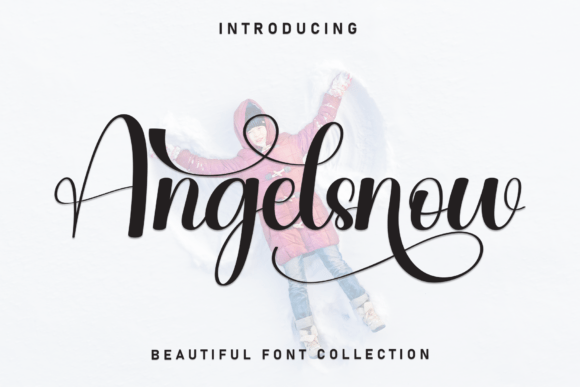
The Magic of Hand-Painted Fonts: Introducing Angelsnow Font
Do you remember the thrill of doodling in your notebook as a child, watching your pen dance across the page as you created intricate patterns and flowing letters? For many designers, this carefree creativity is what sparks the imagination and inspires new ideas. As we grow older, our passion for artistic expression only deepens, and we seek fonts that capture the essence of that childhood magic.
Enter Angelsnow Font, a stunning script font that brings hand-painted calligraphy into the digital age. With its fluid brush strokes, dynamic curves, and expressive letterforms, Angelsnow Font is the perfect tool for designers seeking to add a touch of elegance and sophistication to their work. Whether you’re creating logos, invitations, or social media graphics, this versatile font is sure to deliver both visual impact and creative flair.
Angelsnow Font Key Features
- Font Style: Elegant, cursive script font with a touch of whimsy and romance.
- Font Size: Designed to work well in a range of sizes, from 12pt to 48pt, making it suitable for headings, titles, and body text.
- Language Support: Supports a wide range of languages, including Latin, Cyrillic, Greek, and many others, making it a great choice for international designs.
- Unique Characteristics: Features a unique, hand-drawn design with intricate flourishes and subtle texture, giving it a distinctive and eye-catching look.
Angelsnow Font Review
As a designer, I was excited to dive into the Angelsnow Font, and overall, I have mixed feelings about it. ✨ Let’s start with what works well:
- The Angelsnow Font has a unique and delicate design that can add a touch of elegance to any project.
- The font’s slender lines and subtle flair at the ends make it perfect for creative and whimsical projects.
- The font supports a wide range of languages, making it a great option for international projects.
However, I have to mention some limitations: ⚠️
- The font’s thin lines can make it difficult to read, especially at small font sizes.
- The font lacks bold and italic styles, which can limit its versatility.
- The font’s design may not be suitable for projects that require a strong, bold, or modern look.
Overall, I think the Angelsnow Font is a great option for designers who want to add a touch of sophistication and whimsy to their projects. While it may have some limitations, its unique design and wide language support make it a solid choice for the right projects.
Angelsnow Font is ideal for:
- Christmas and winter-themed designs.
- Magazine and book titles.
Tips for Getting the Most Out of Angelsnow Font
To get the most out of Angelsnow Font, try:
- Pairing it with a bold, modern font for contrast.
- Using it in combination with elegant graphics and illustrations.
- Experimenting with different font sizes and styles to create visual interest.
Alternatives to Angelsnow Font
Great Vibes Font is a beautiful, elegant script font. It is perfect for creating invitations, quotes, and other design elements where a touch of sophistication is needed. Great Vibes Font is more refined and less playful than Angelsnow Font, making it suitable for formal designs.
Dancing Script Font is a lively, cursive script font that is ideal for creating attention-grabbing headlines, titles, and logos. It is more energetic and dynamic than Angelsnow Font, making it suitable for designs that require a sense of movement and playfulness.
Carolyna Pro Font is a modern, elegant script font that is perfect for creating high-end designs, such as luxury branding and packaging. It is more polished and sophisticated than Angelsnow Font, making it suitable for designs that require a sense of luxury and refinement.
Alex Brush Font is a beautiful, elegant script font that is ideal for creating invitations, quotes, and other design elements where a touch of sophistication is needed. It is more refined and less playful than Angelsnow Font, making it suitable for formal designs that require a sense of elegance and refinement.
Is Angelsnow a scalable font?
Yes, Angelsnow is a scalable font, which means it can be resized without losing quality. This is due to the font’s design and the use of advanced font technologies, such as OpenType features and hinting.